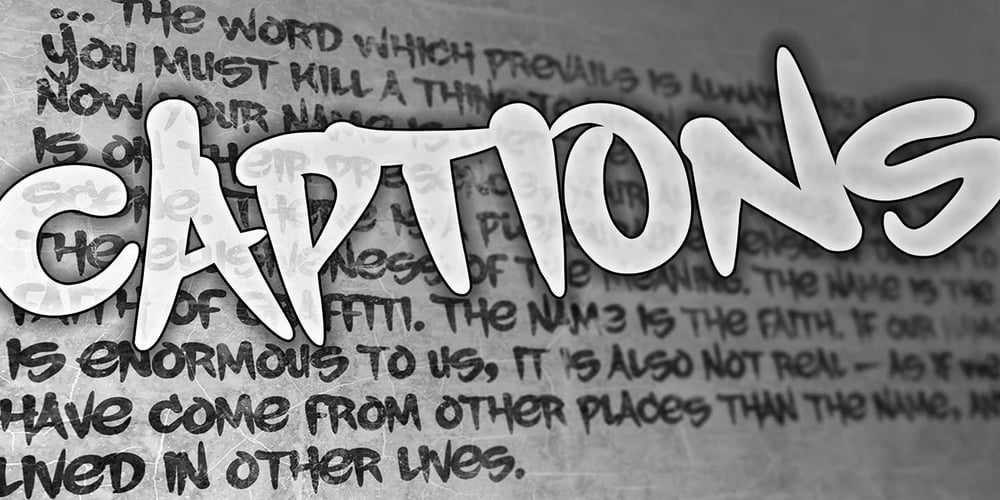
Caption Font Family was designed by Matthew Napolitano and published by Graffiti Fonts. Caption contains 2 styles and family package options. As its name suggests Captions is a font created to mimic the small legible bodies of text that often accompany pieces & productions. The letters were originally created with spray paint & rendered solid & smooth.